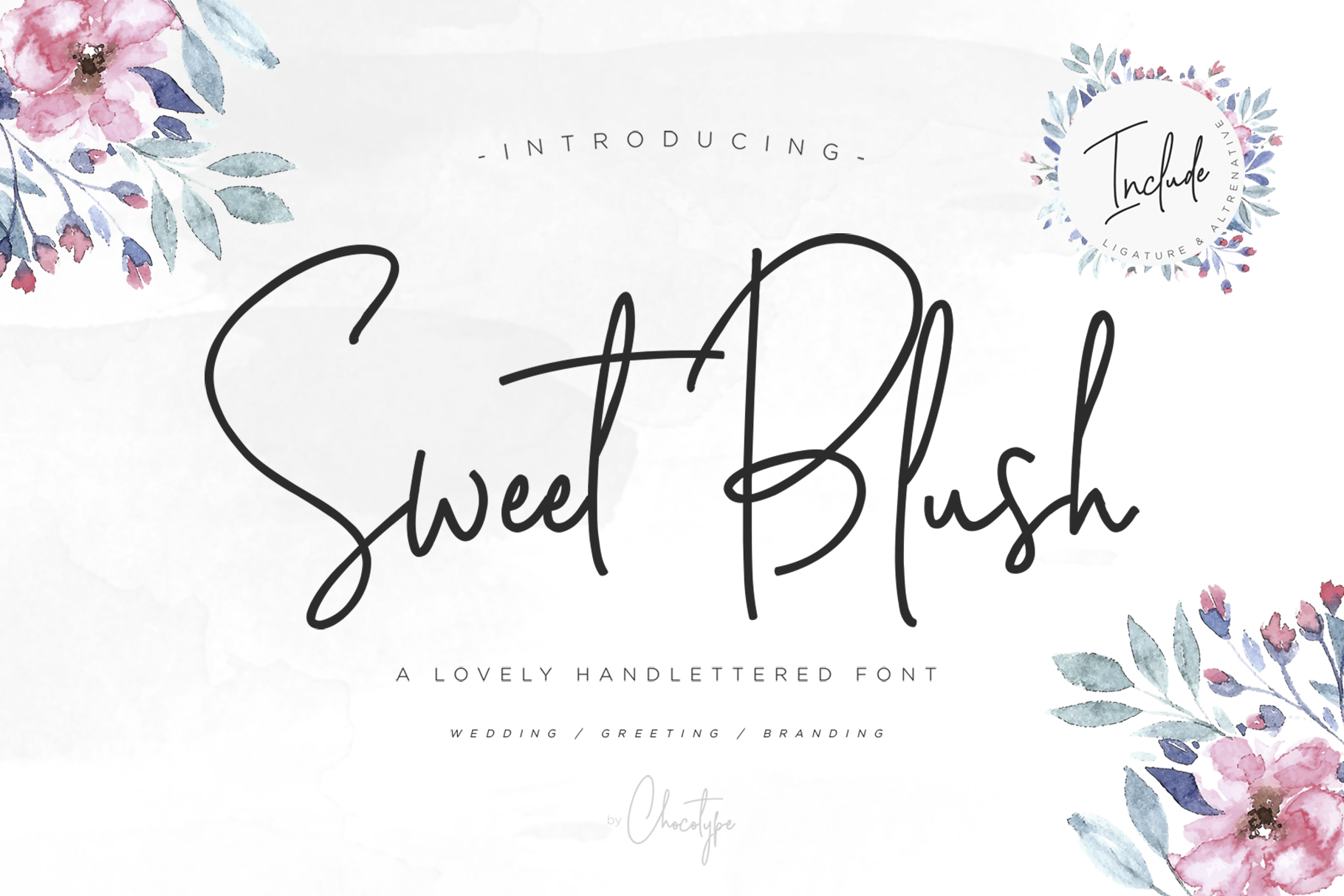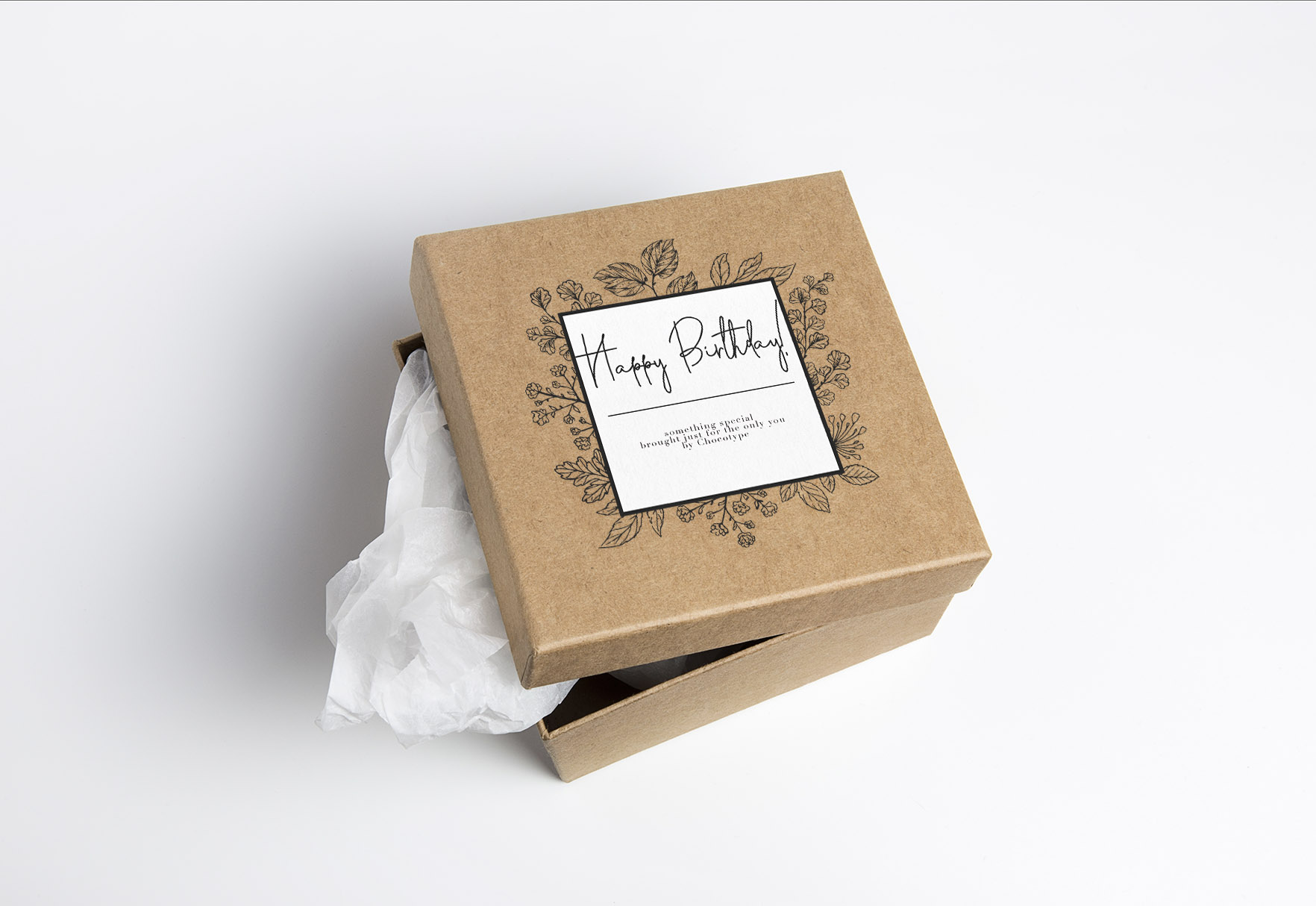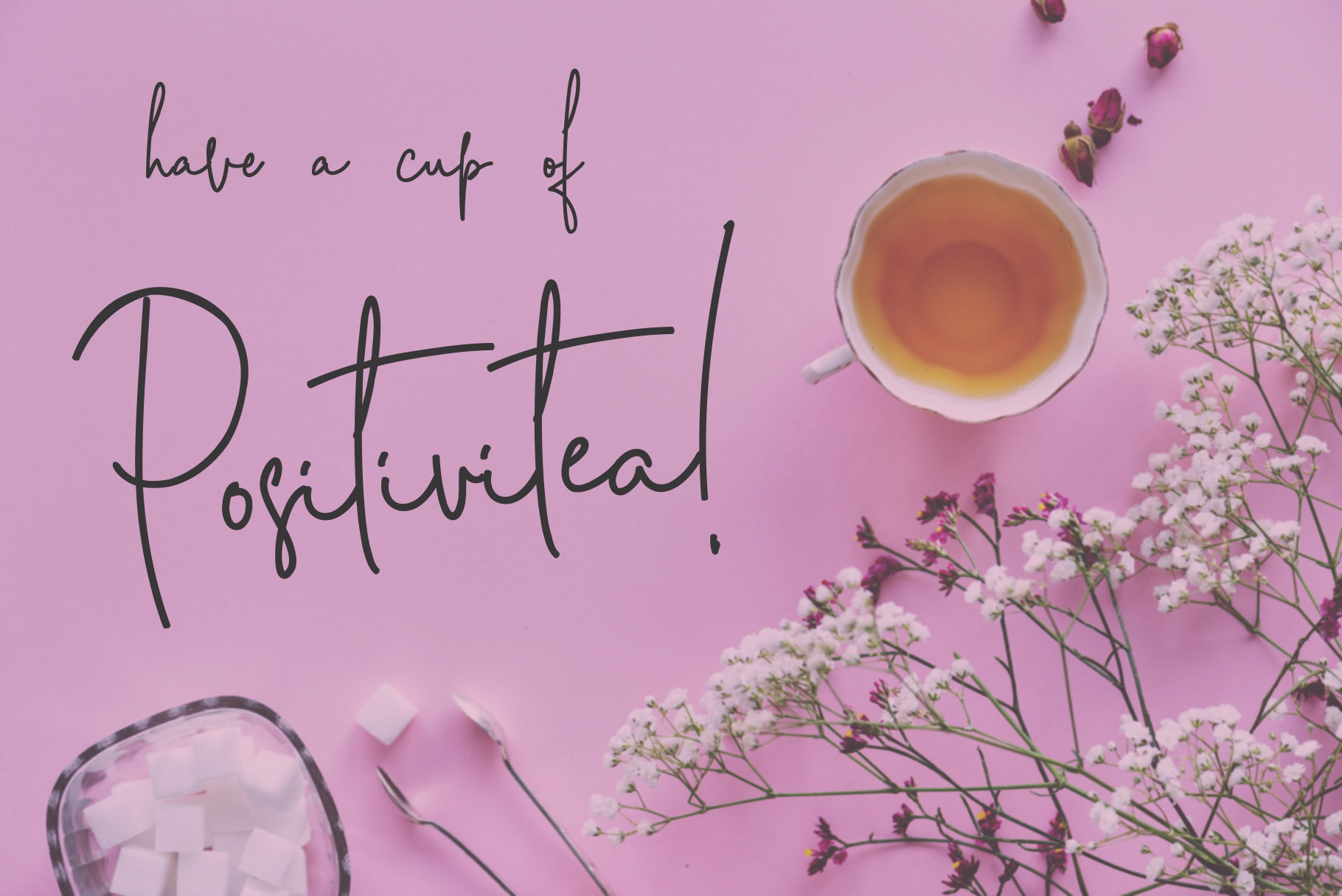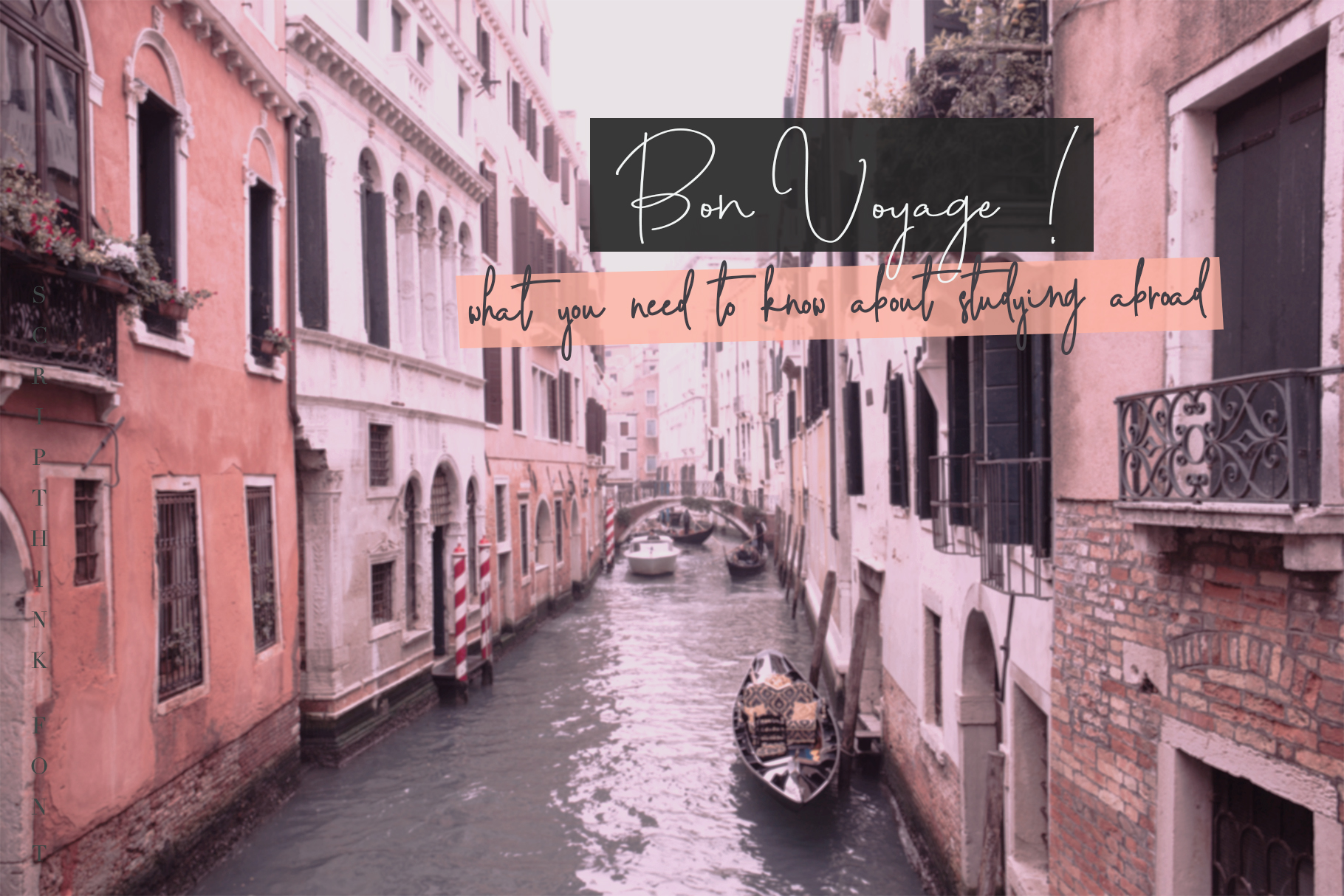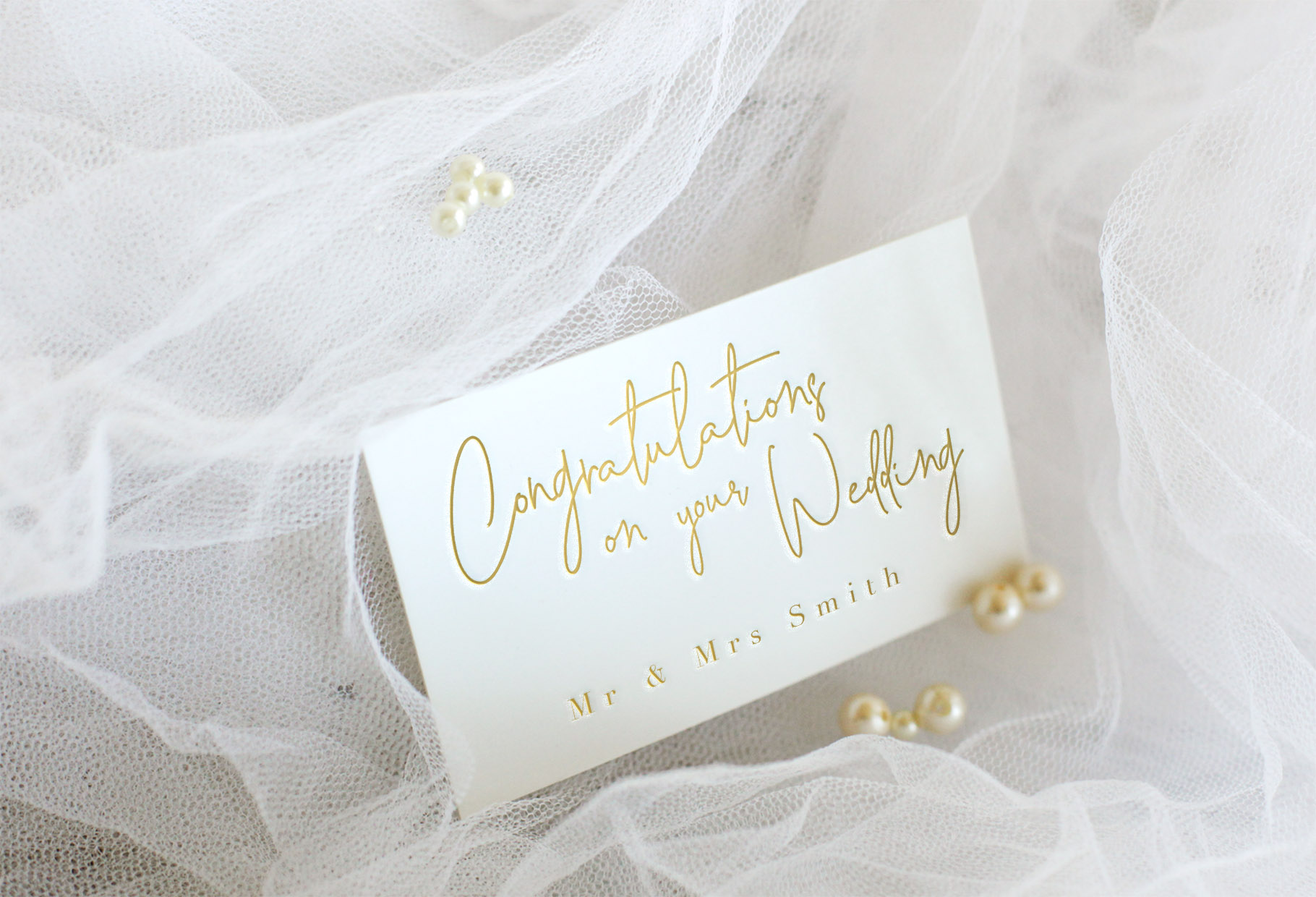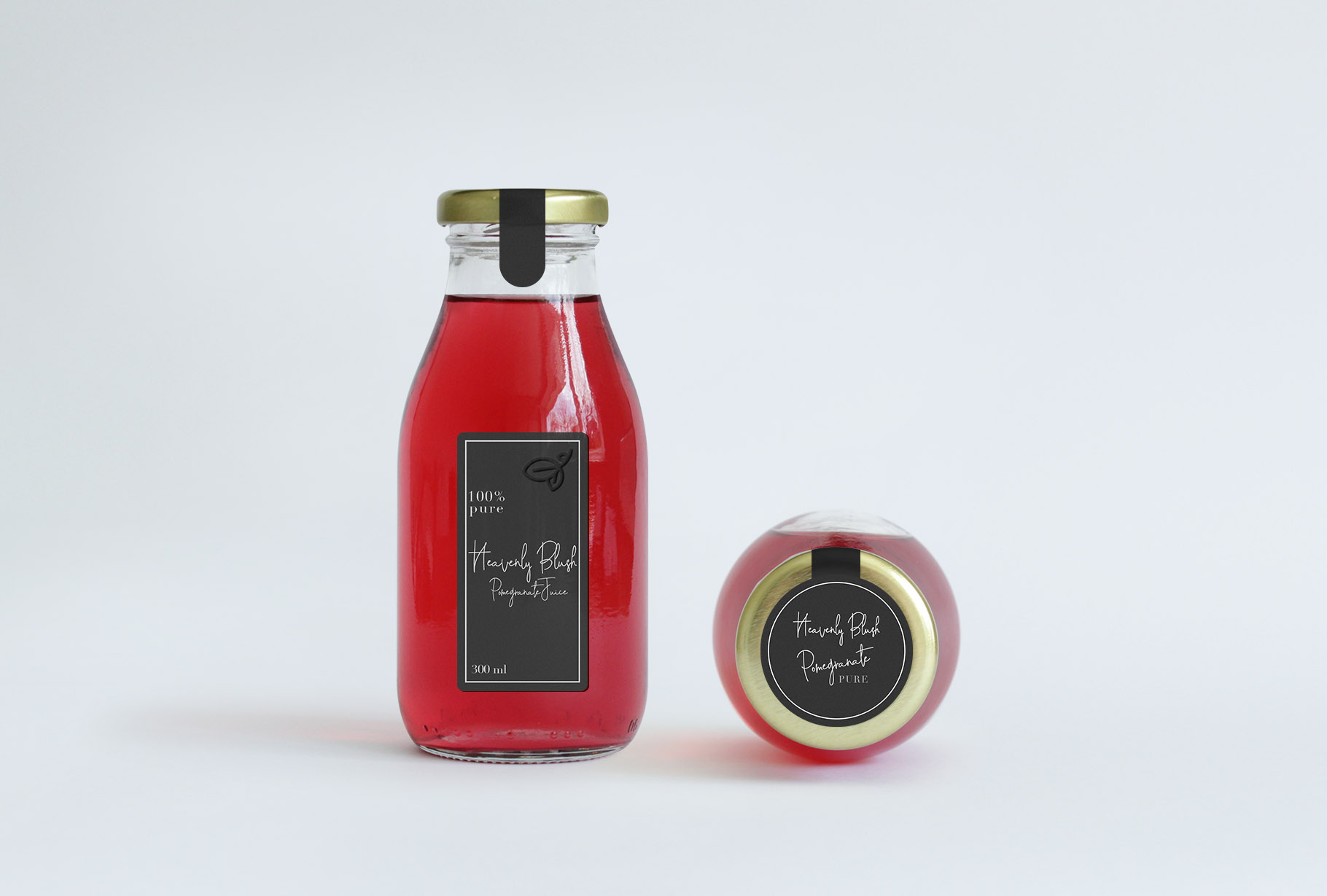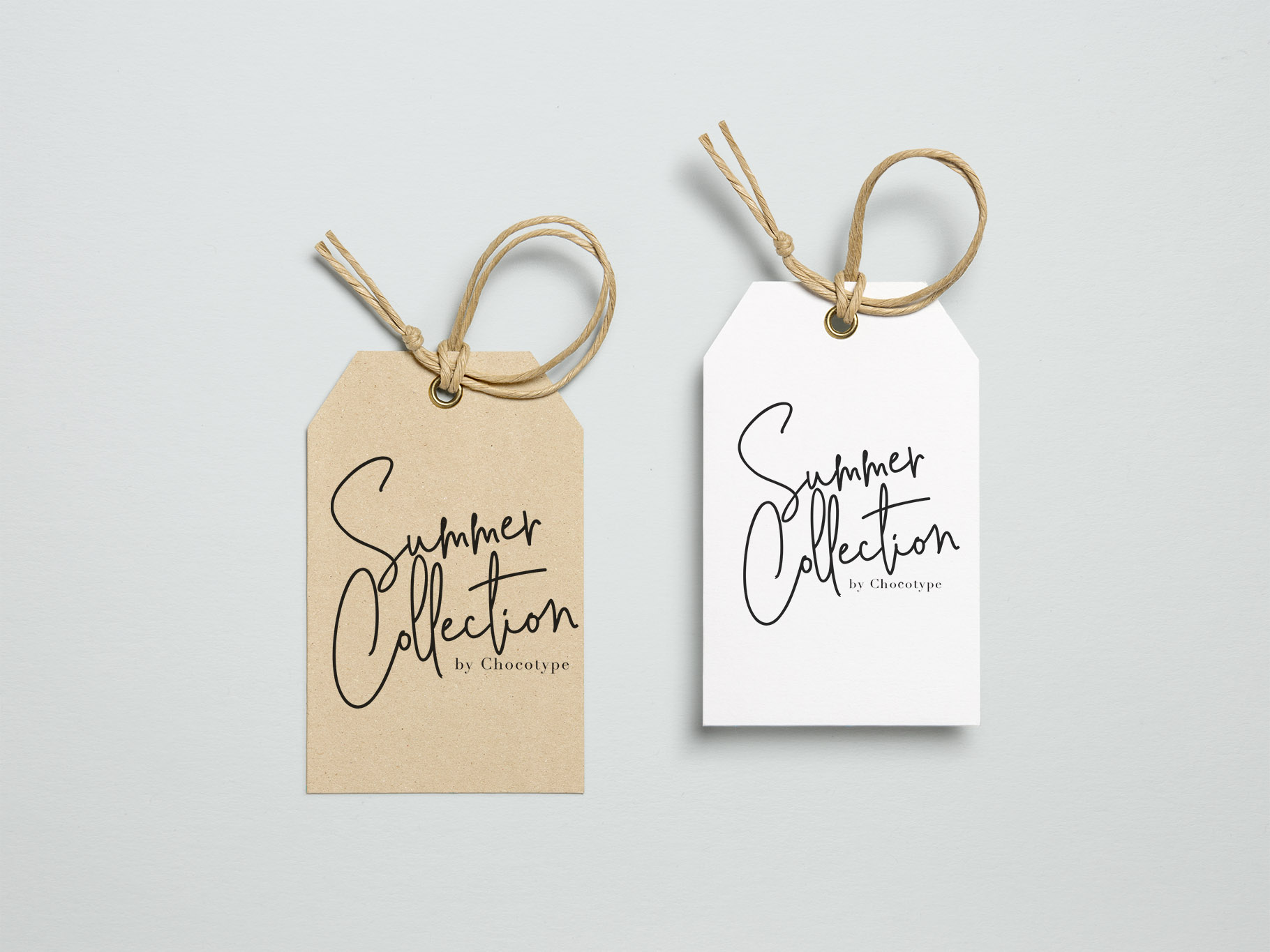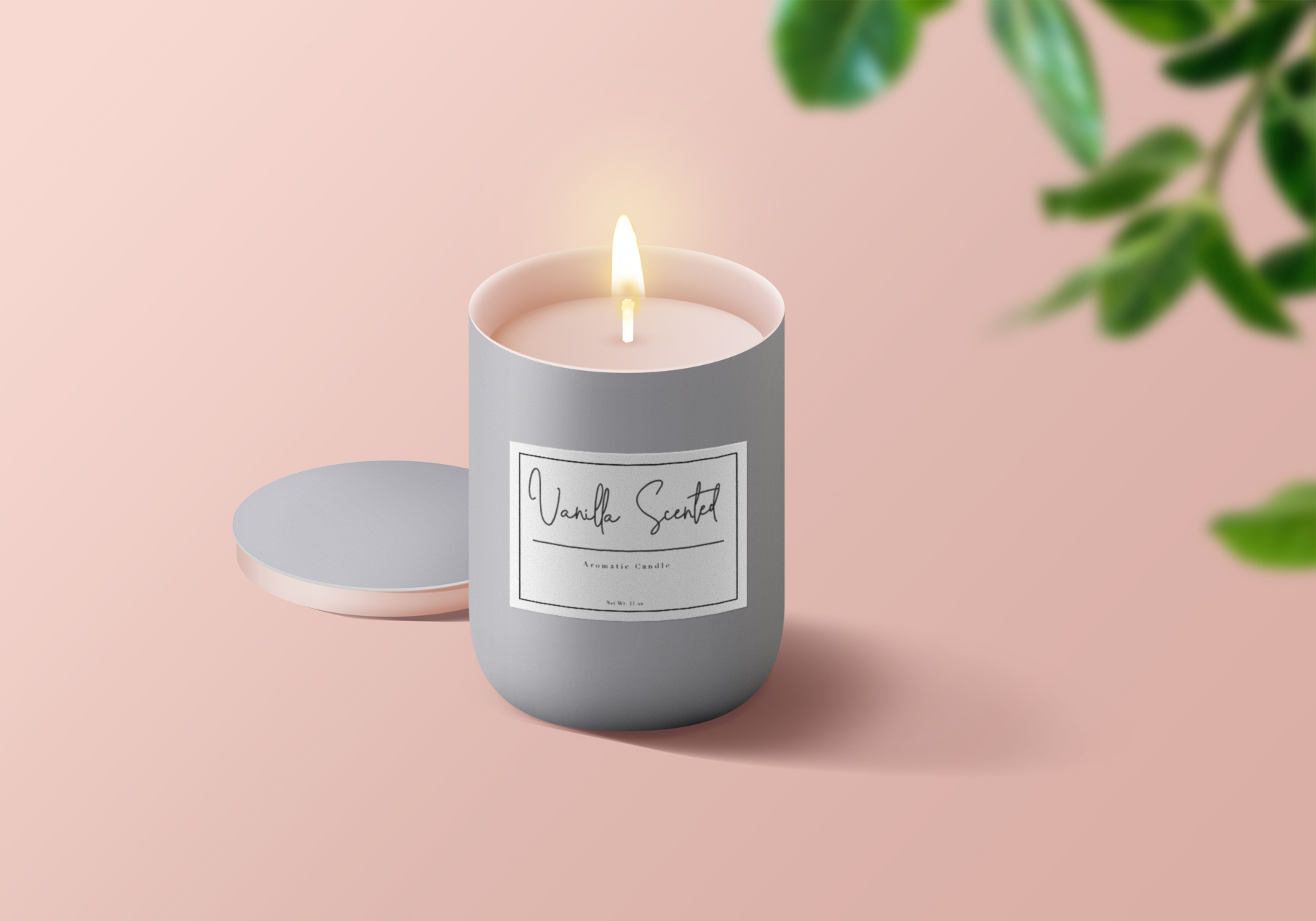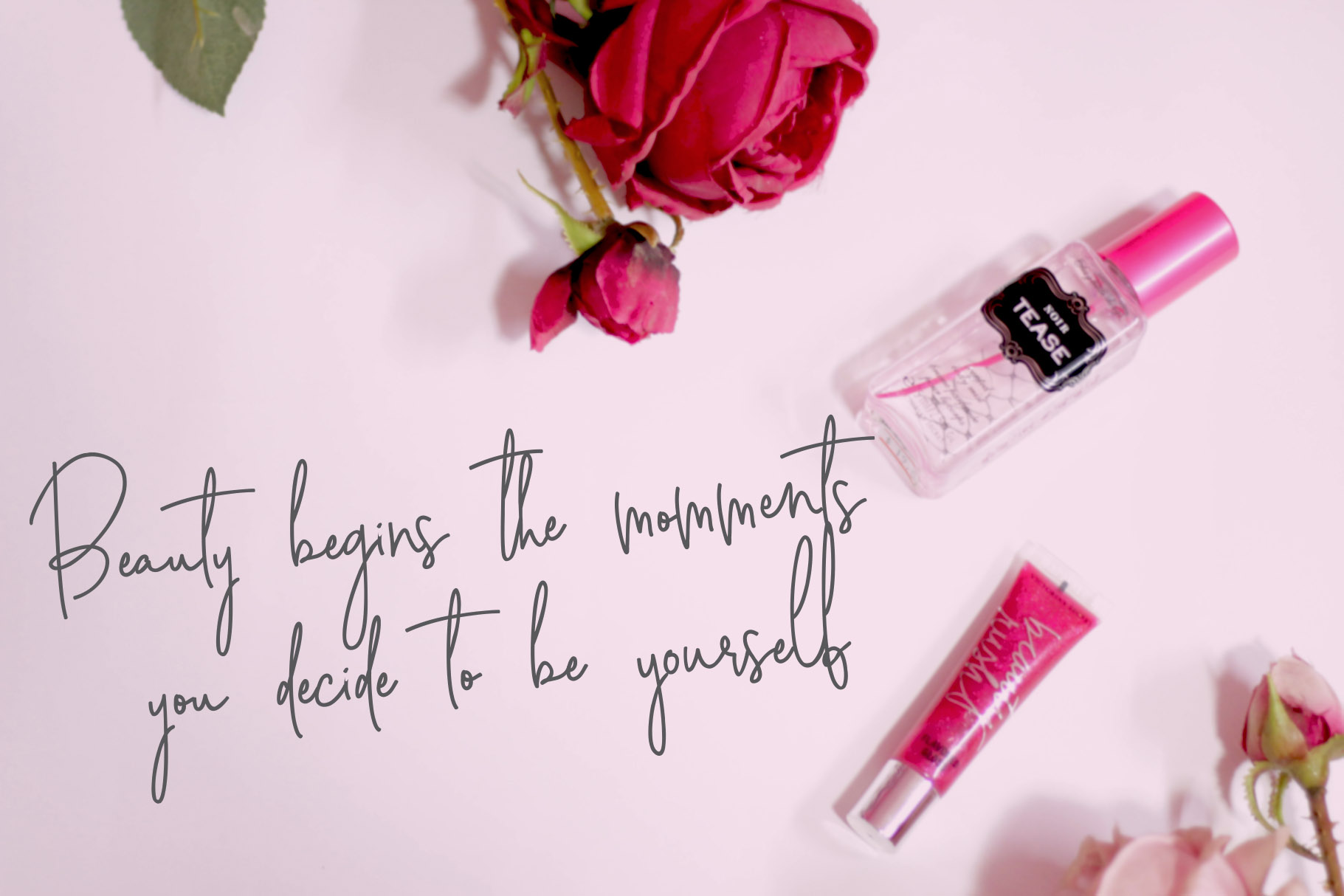
Sweet Blush Font
About Sweet Blush Font
Sweet Blush is a beautiful monoline script font, perfect for use in feminine and editorially oriented designs. This font works best as a header or as the focal point of your creative work.